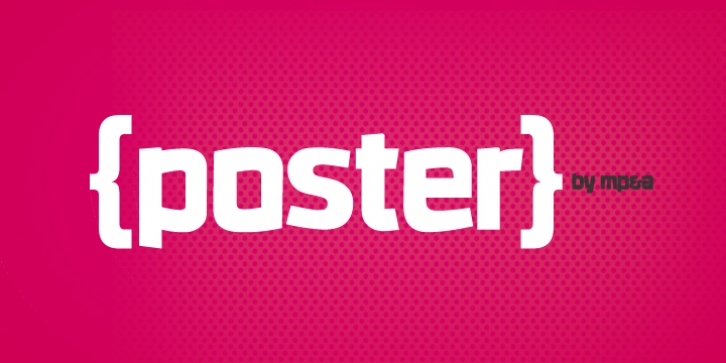
Poster was published by MP&A. Poster contains 1 style.
Poster is the first type created by this team. Its an experiment. This geometric typeface is based on bold and clean rounded rectangles. It's soft and friendly look lends itself to a number of applications. It´s a good choice for company logotypes, magazine headlines and, of course, posters applications.
This font was designed to be used in large sizes, so you can appreciate the little details.